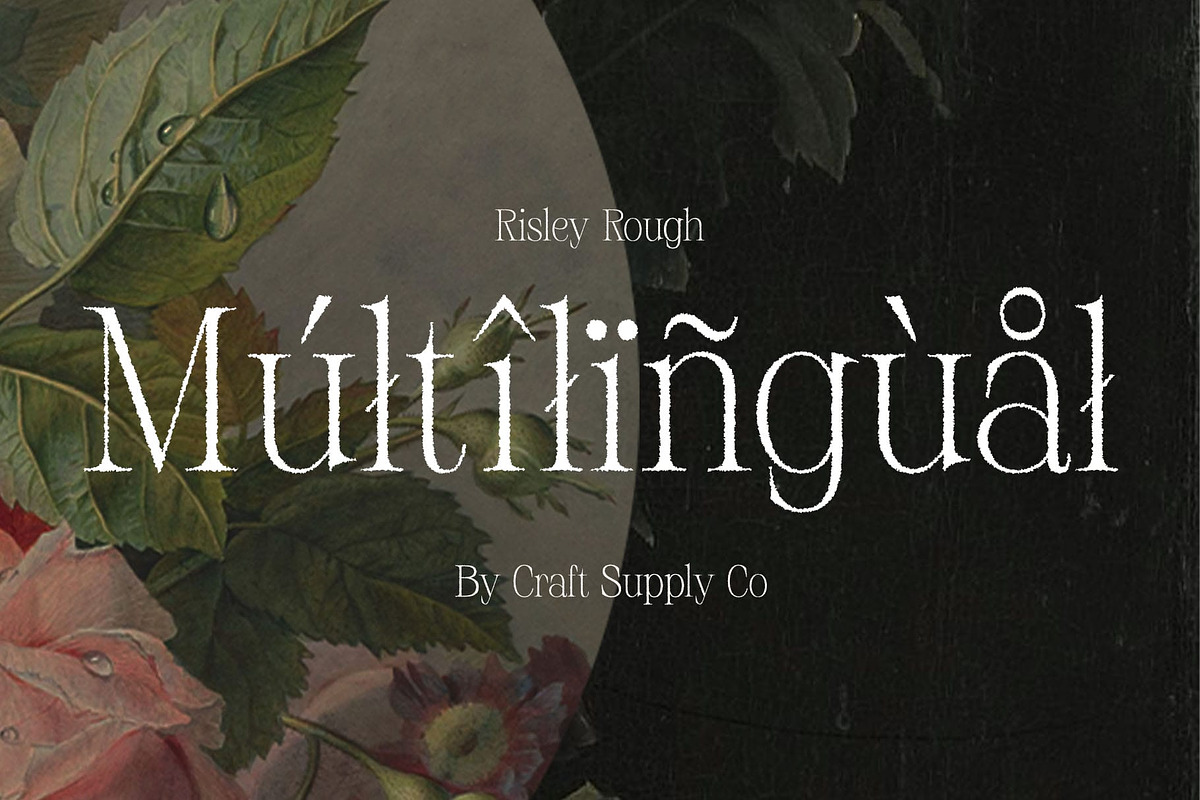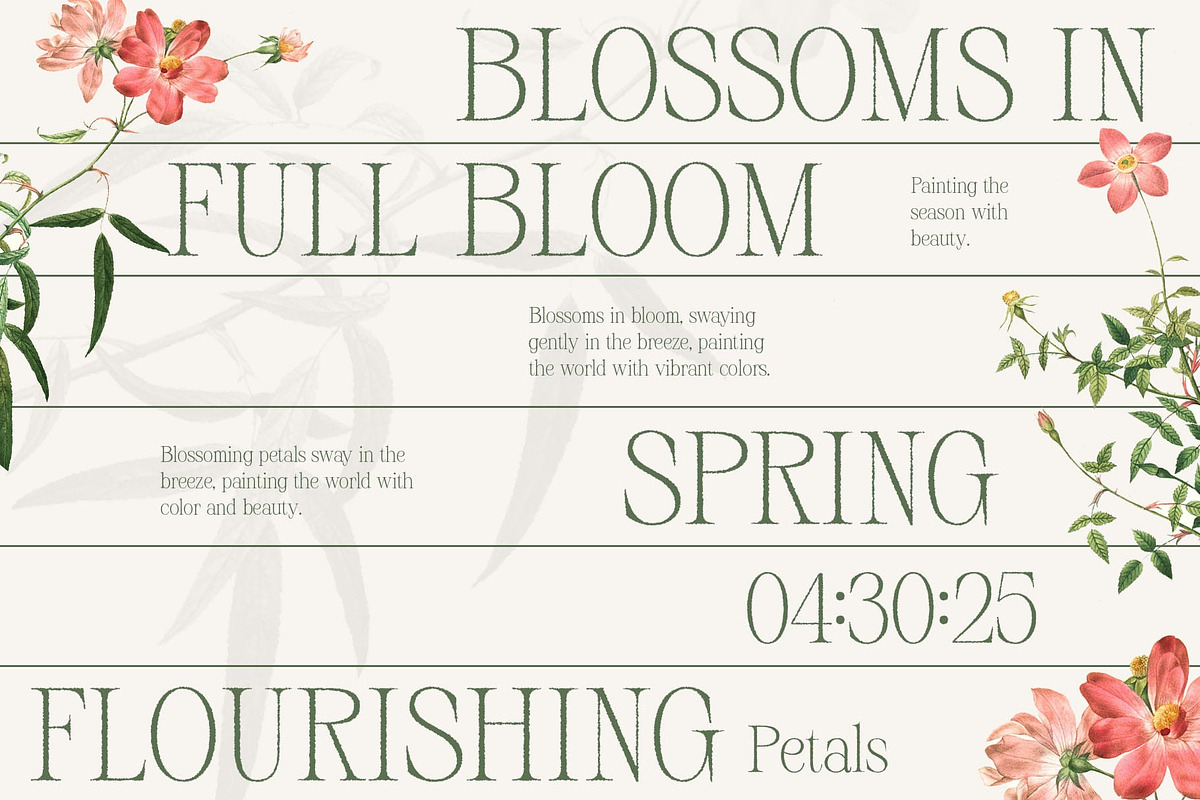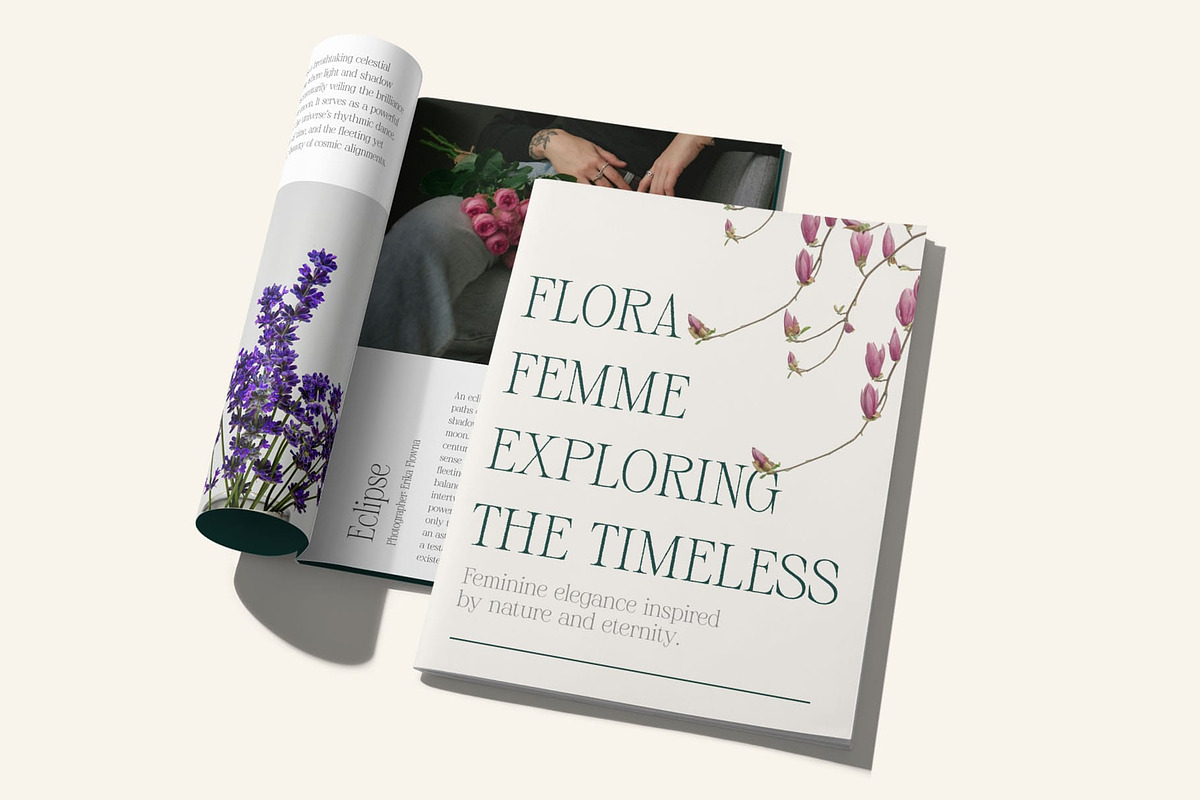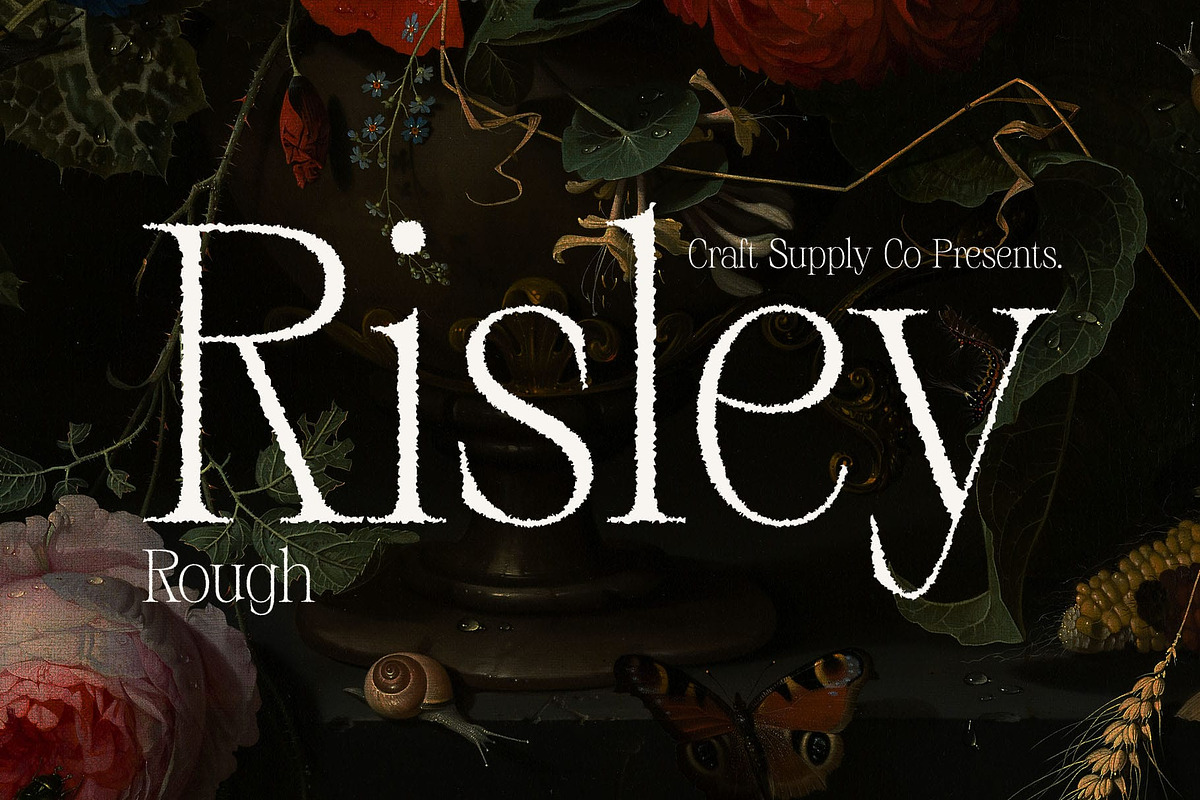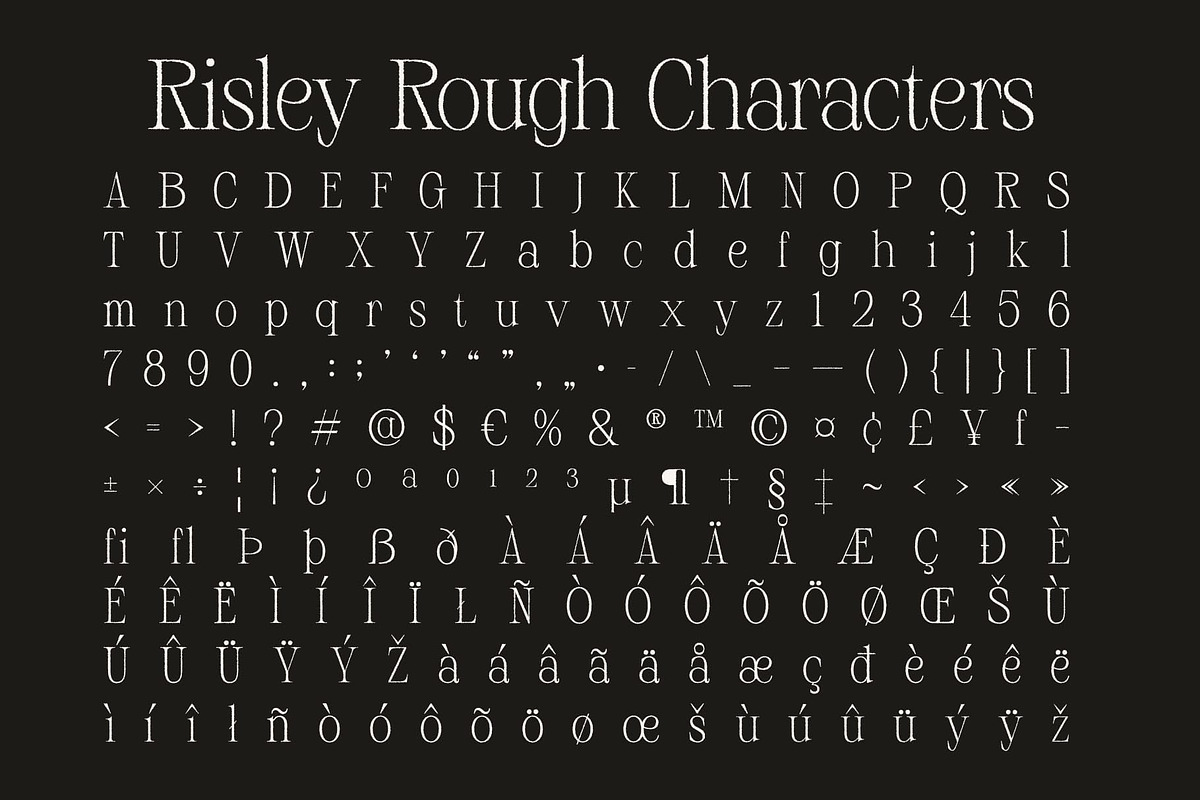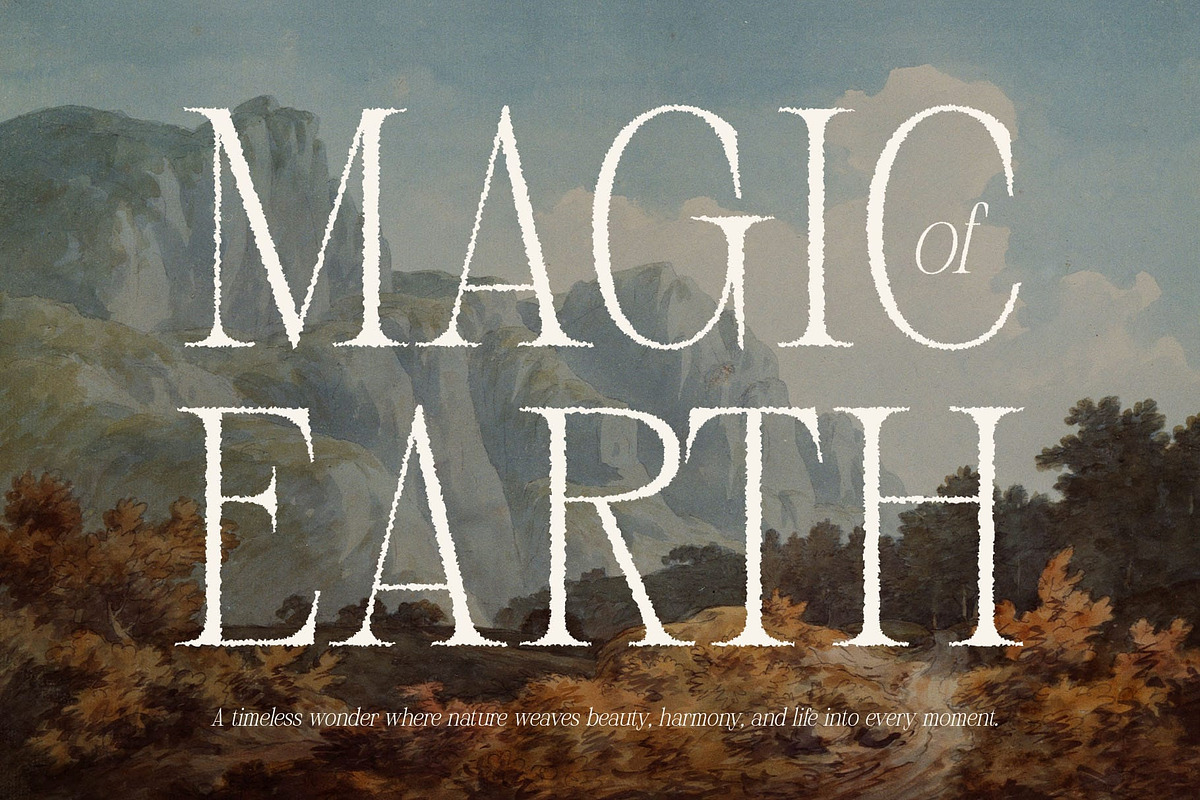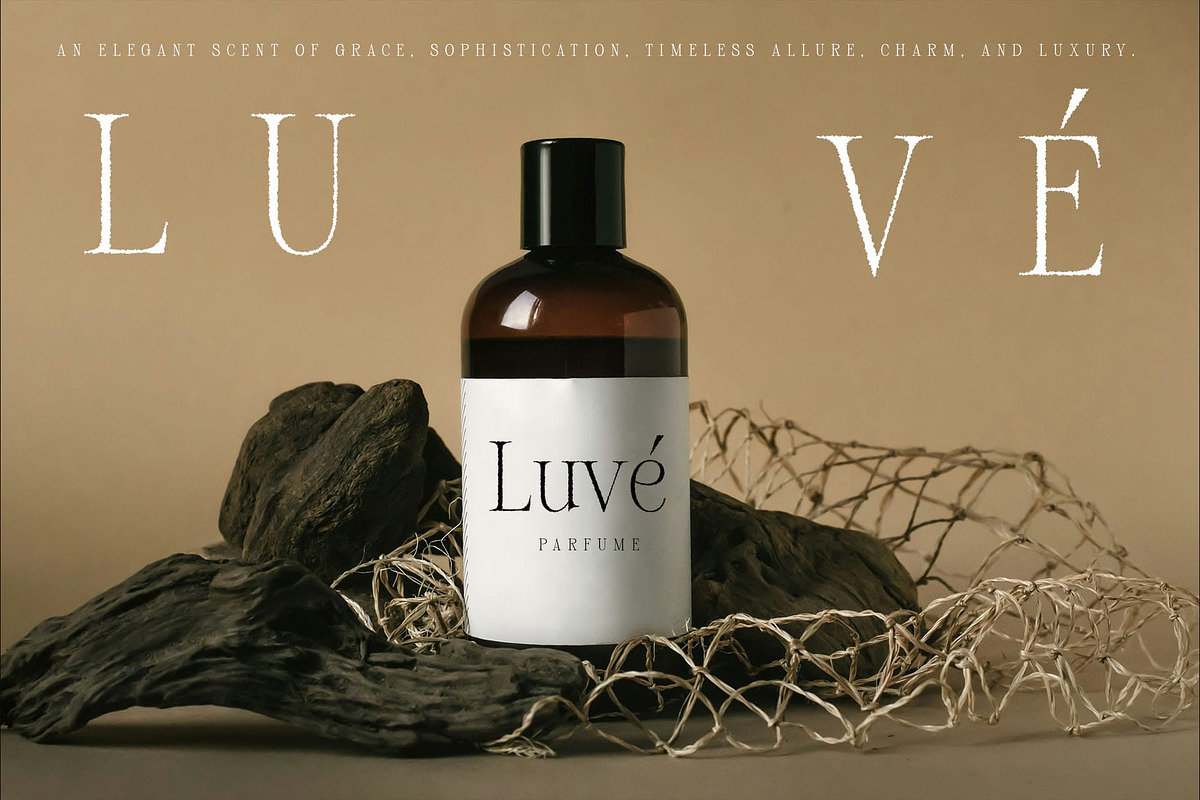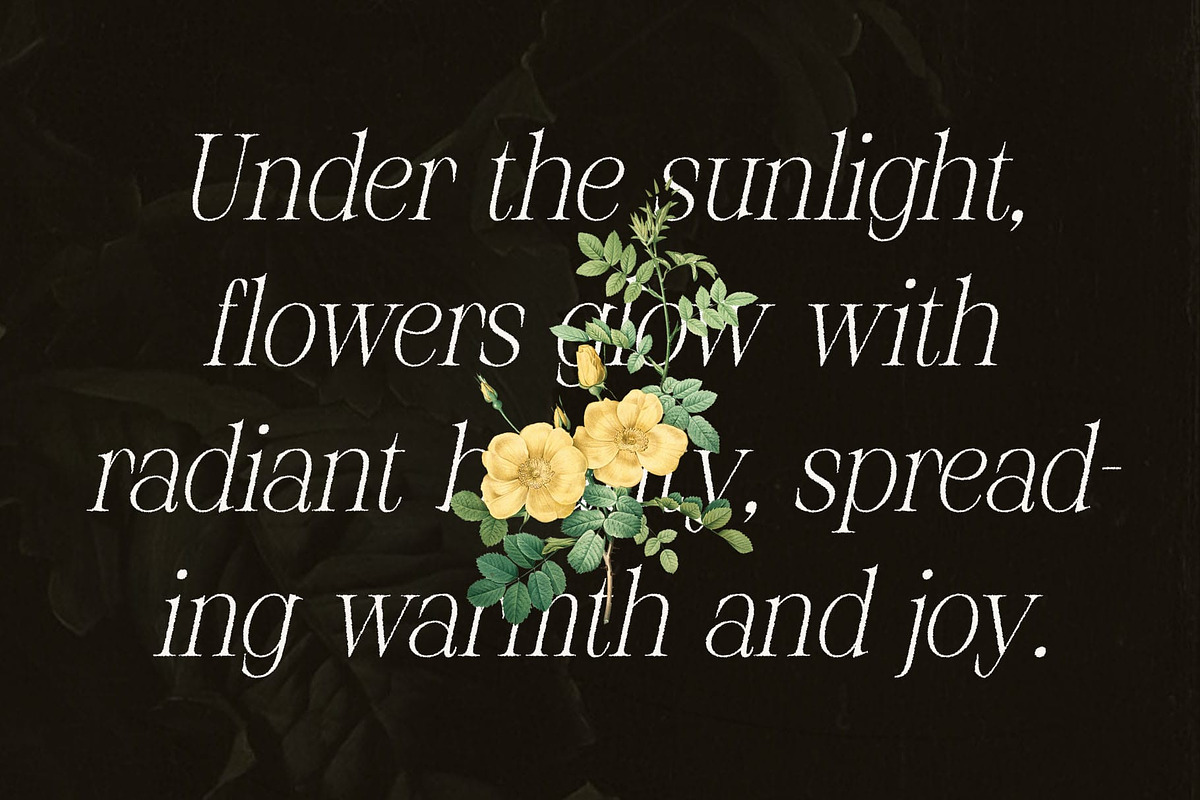
Risley Rough
Risley Rough Font: Where Elegance Meets Texture
A Modern Serif Font with a Timeless Appeal Risley Rough is a modern serif font that blends classic sophistication with a contemporary edge. Featuring elongated, refined serifs, it embodies luxury and grace, making it perfect for high-end branding, editorial design, and sophisticated visual identities. Its well-balanced proportions ensure a polished and professional look, ideal for projects requiring a timeless yet modern aesthetic.
Rough Texture for an Artistic and Vintage Feel What sets Risley Rough apart is its subtle rough texture, which adds a handcrafted, artistic touch. The slightly distressed finish gives it a vintage-inspired look, perfect for projects that aim to convey a sense of heritage, authenticity, and depth. This combination of classic elegance and textured character makes it ideal for luxury designs, artisanal branding, and creative typography.
Perfect for Premium Branding and Editorial Excellence With its distinctive yet versatile appeal, Risley Rough is an excellent choice for high-end logos, magazine headlines, book covers, and stylish packaging. The delicate balance between smooth refinement and raw texture ensures that it stands out in fashion branding, boutique packaging, and upscale marketing materials, giving designs a memorable and exclusive feel.